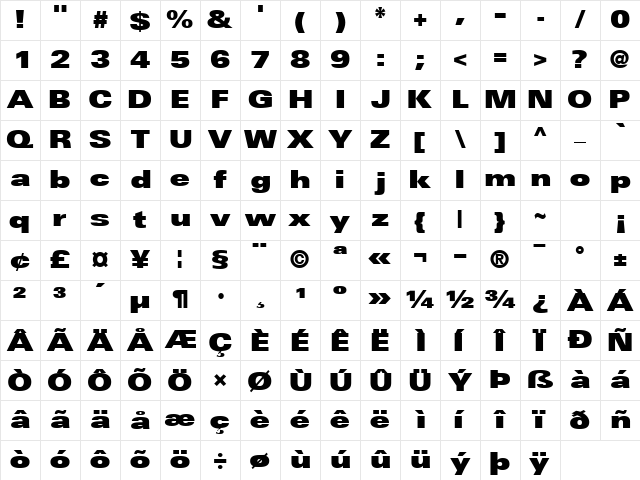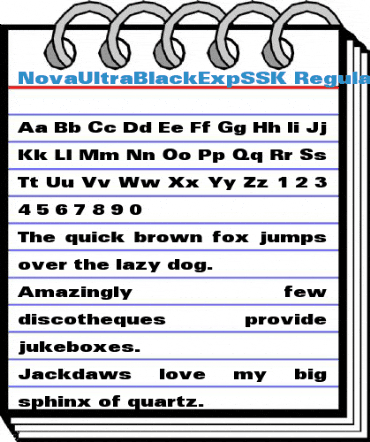
Complete NovaUltraBlackExpSSK Regular glyph index. Displaying only characters natively supported by NovaUltraBlackExpSSK Regular font.
NovaUltraBlackExpSSK is a composed and adaptable typeface that performs quietly and consistently across a wide range of design contexts.